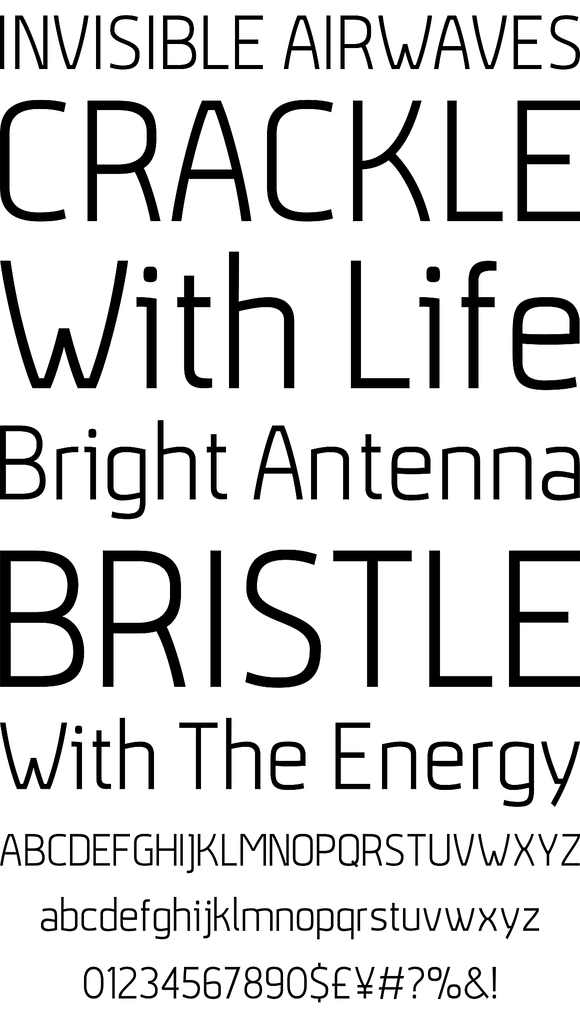
Vitali is a variations of my last font Aneba_family.
This is geometric sans serif typeface family with a clean feel.
The low contrast and high x height is perfect for longer text and Headlines.
Vitali family contains 2 weights in two different styles - bold & italic.